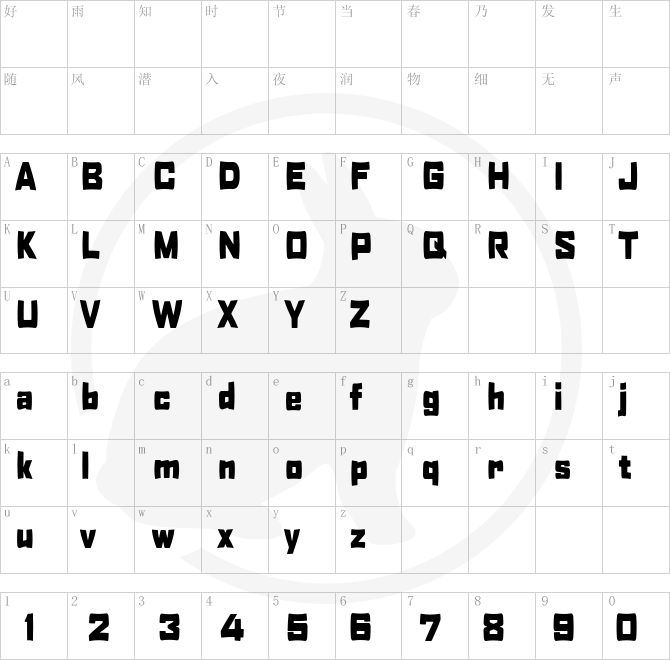
- Font Name:H0bby of night
- Subfamily:deFharo: H0bby of night: 2013
- Full Name:H0bbyofnight
H0bbyofnight.ttf is a very beautiful artistic font, H0bbyofnight.ttf is widely used in the design and printing of various books and pictures,H0bbyofnight.ttf has a strong visual impact,H0bbyofnight.ttf is a commonly used font in newspapers, magazines and books, and is used in posters, e-commerce Poster design, store design, logo design, font design and other fields.H0bbyofnight.